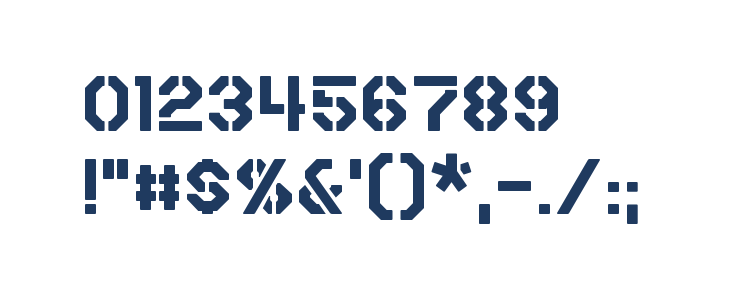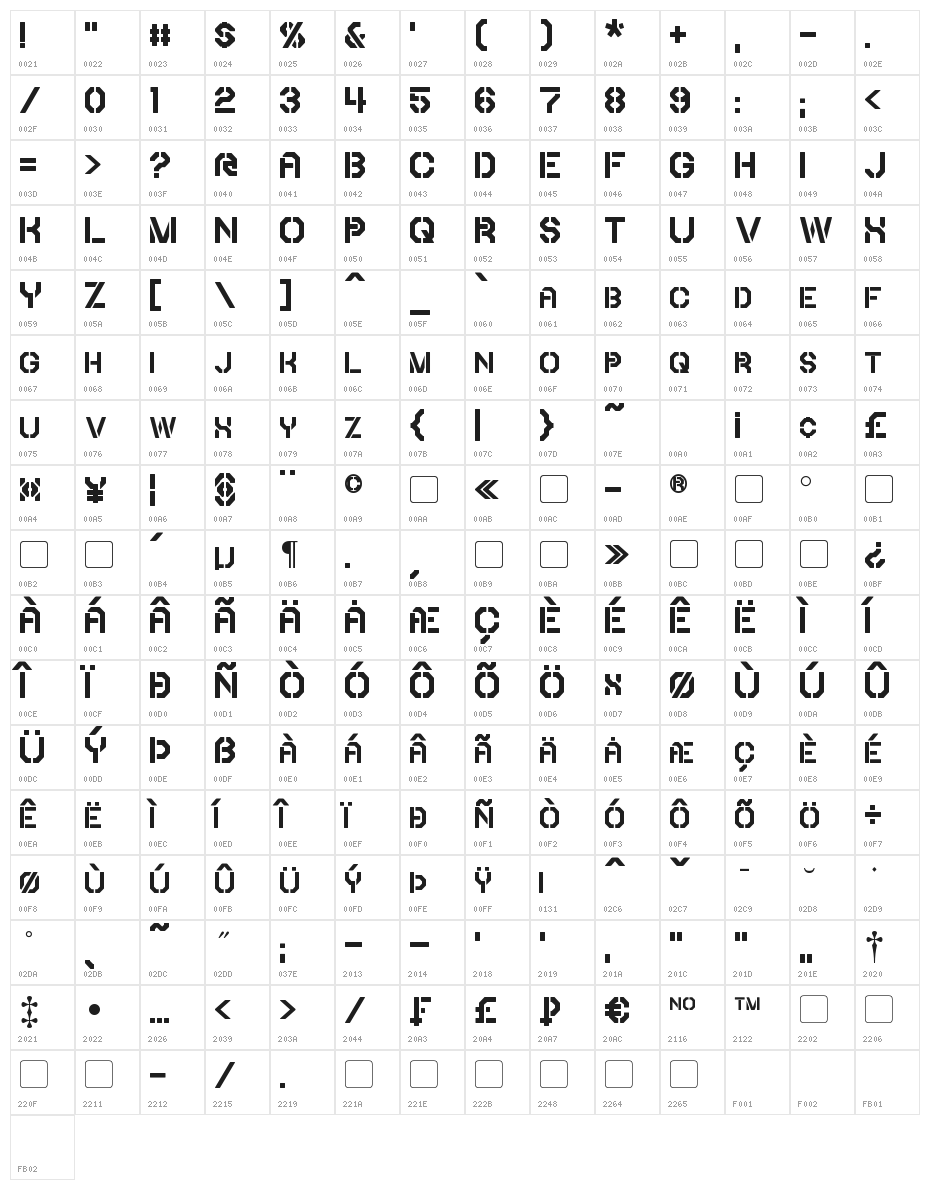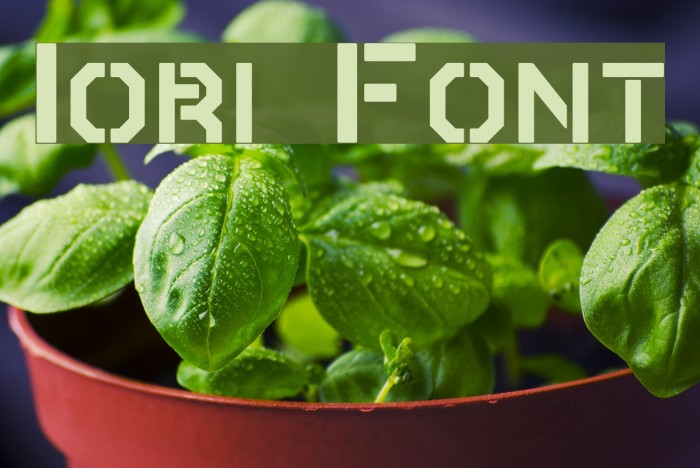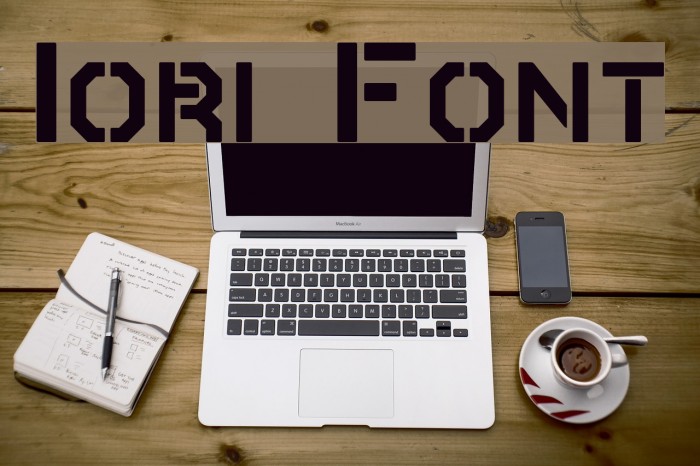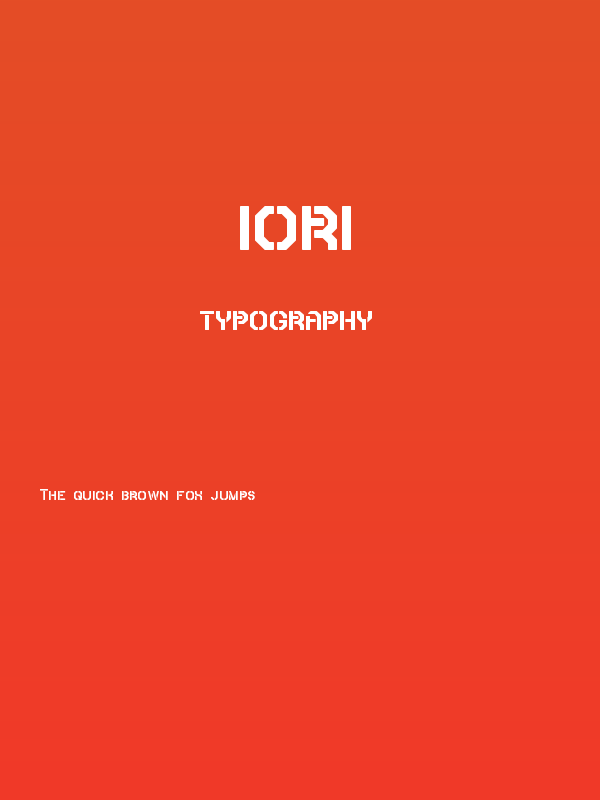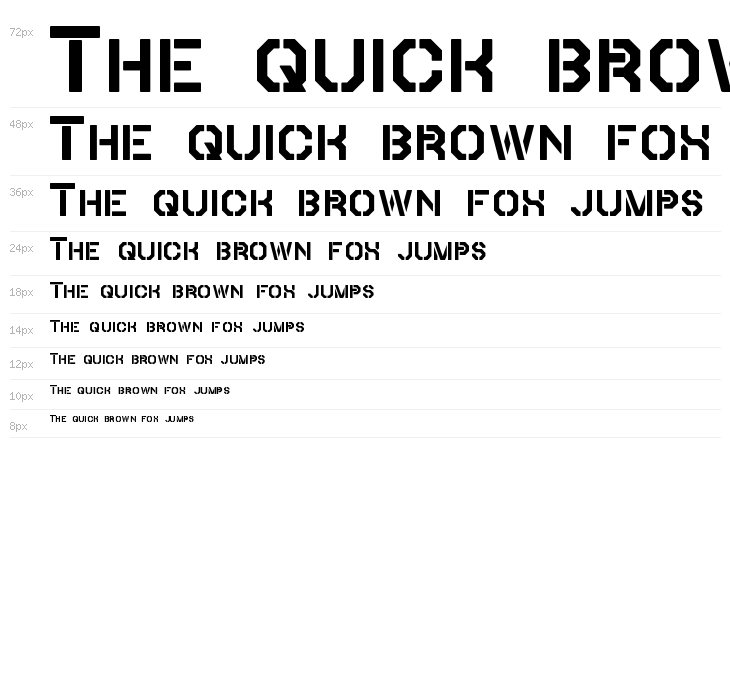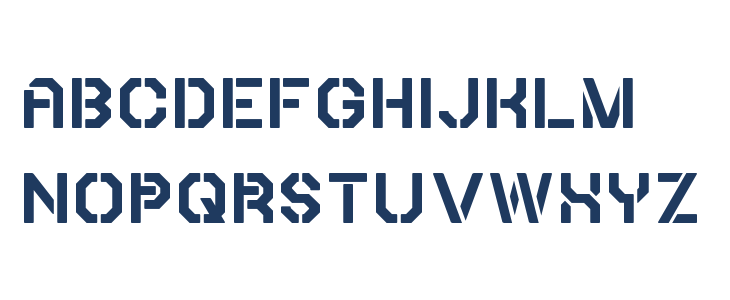
Iori Font
Iori Description
This font features a bold, geometric design with a distinct stencil-like appearance. Each character is constructed with sharp angles and straight lines, creating a futuristic and industrial feel. The uppercase letters are uniform in height, while the numbers and special characters maintain the same bold, angular style. The font's unique cut-out sections add to its modern and edgy aesthetic, making it stand out in any design. Its strong visual impact is ideal for projects that require a bold statement.